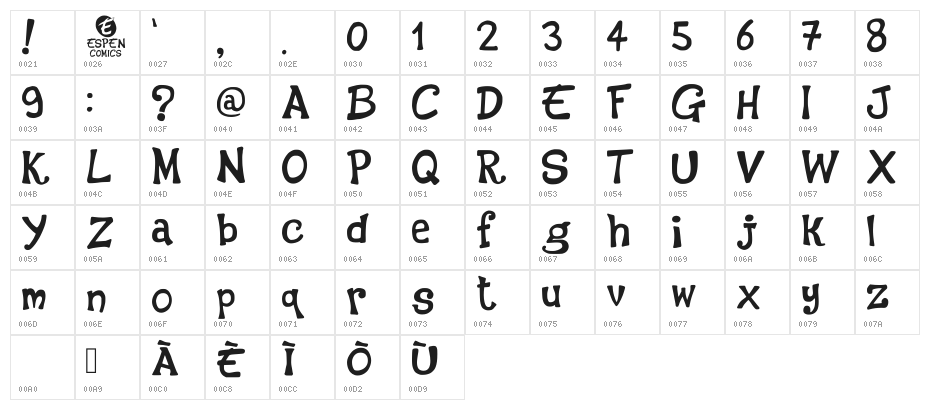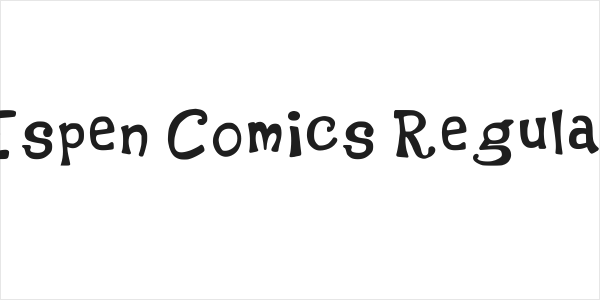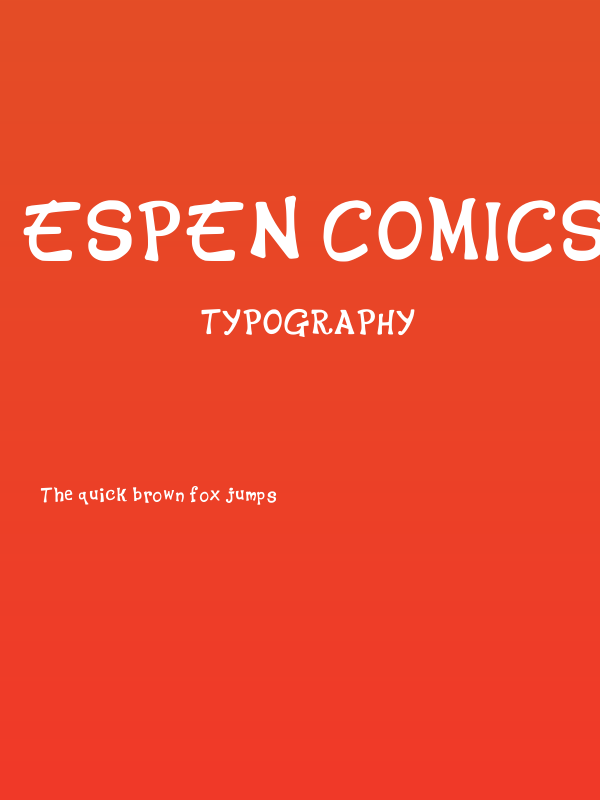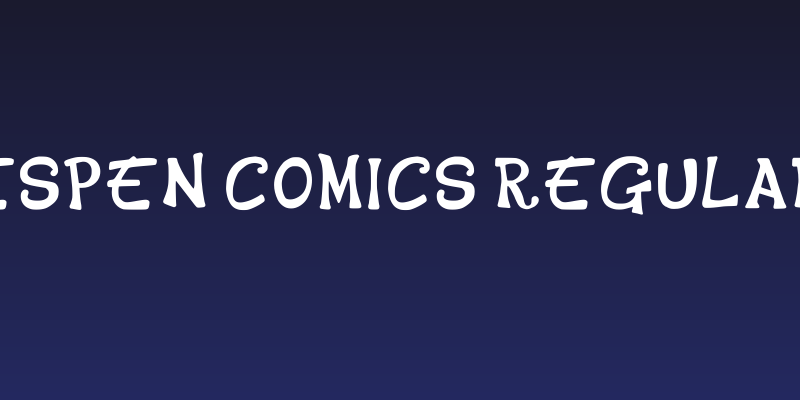
Espen Comics Regular Font
Espen Comics Regular Description
This playful and dynamic font features a hand-drawn, comic-style appearance with irregular strokes and a casual, informal vibe. The letters are bold and slightly uneven, giving them a lively and energetic feel. The uppercase and lowercase characters maintain a consistent style, with rounded edges and a slightly exaggerated form that enhances their whimsical nature. The numerals and special characters follow the same playful design, making them suitable for creative and fun projects. The font's overall style is reminiscent of comic book lettering, making it ideal for projects that require a touch of humor and creativity.
| Overall Style | Playful, Comic |
| Proposed Projects | Ideal for comic books, children's books, playful branding, and creative posters. |